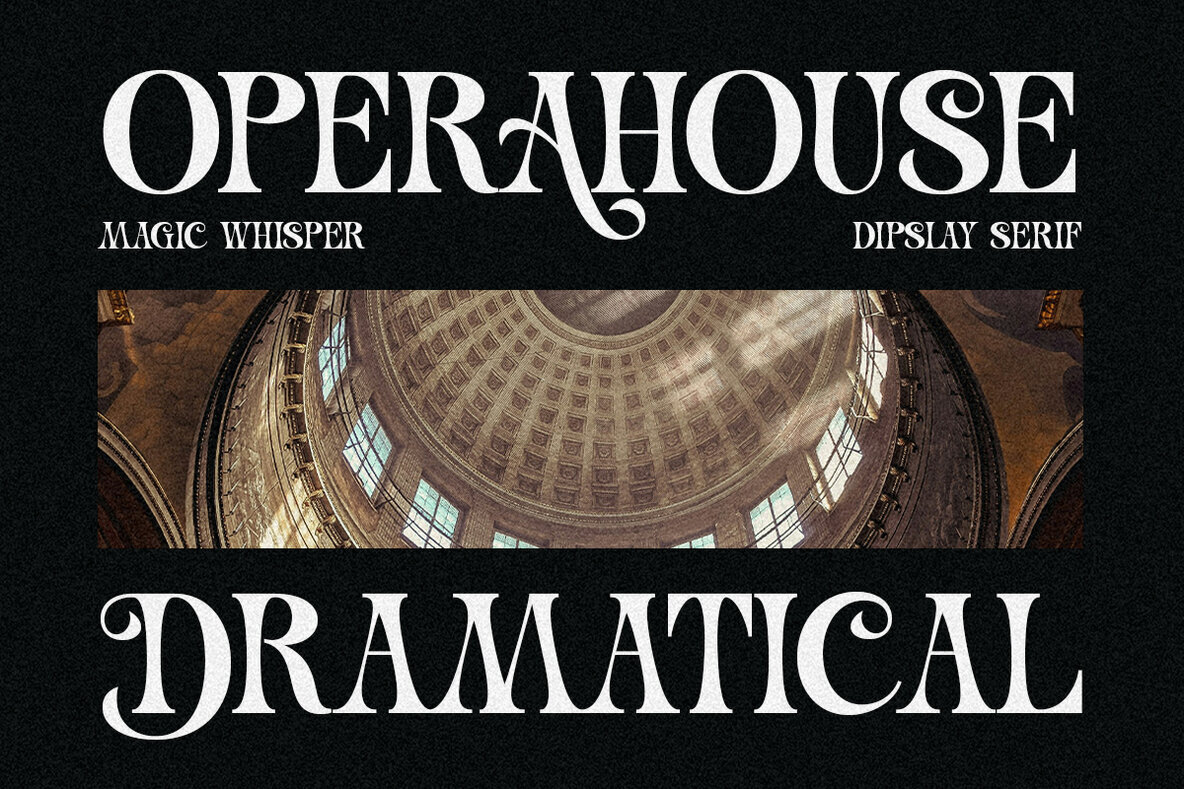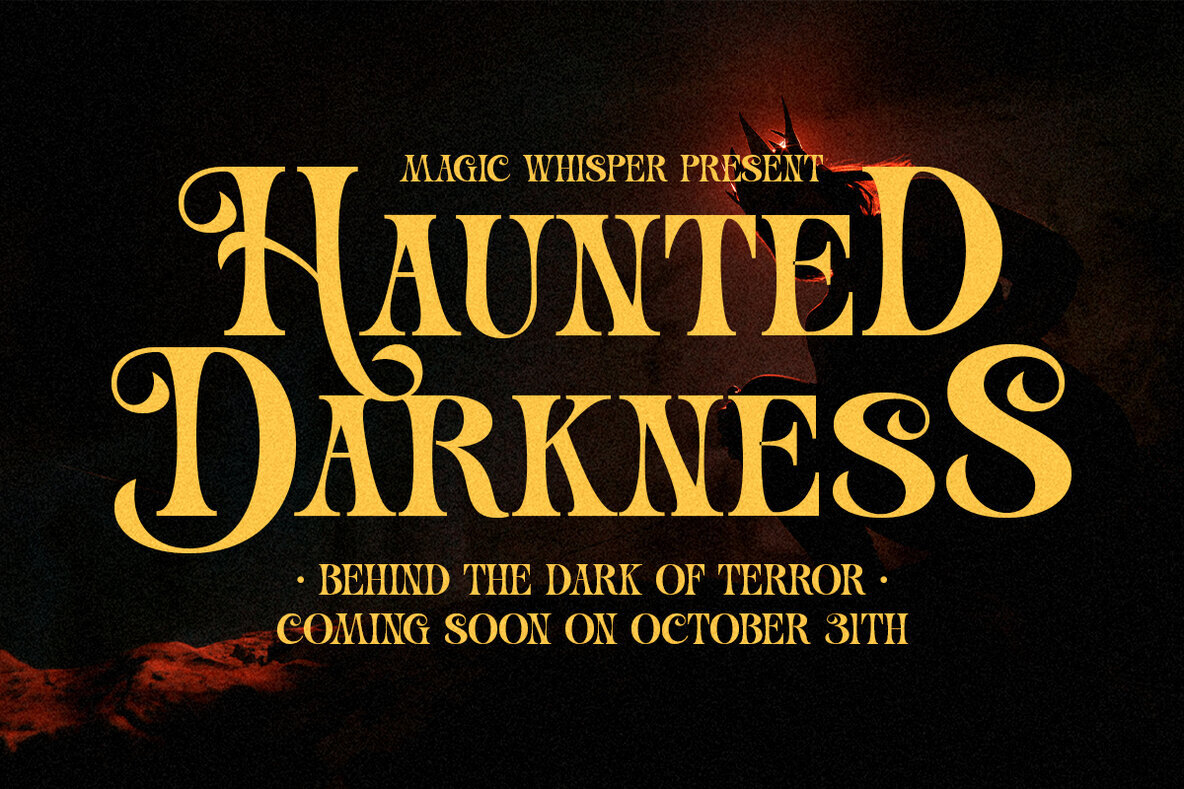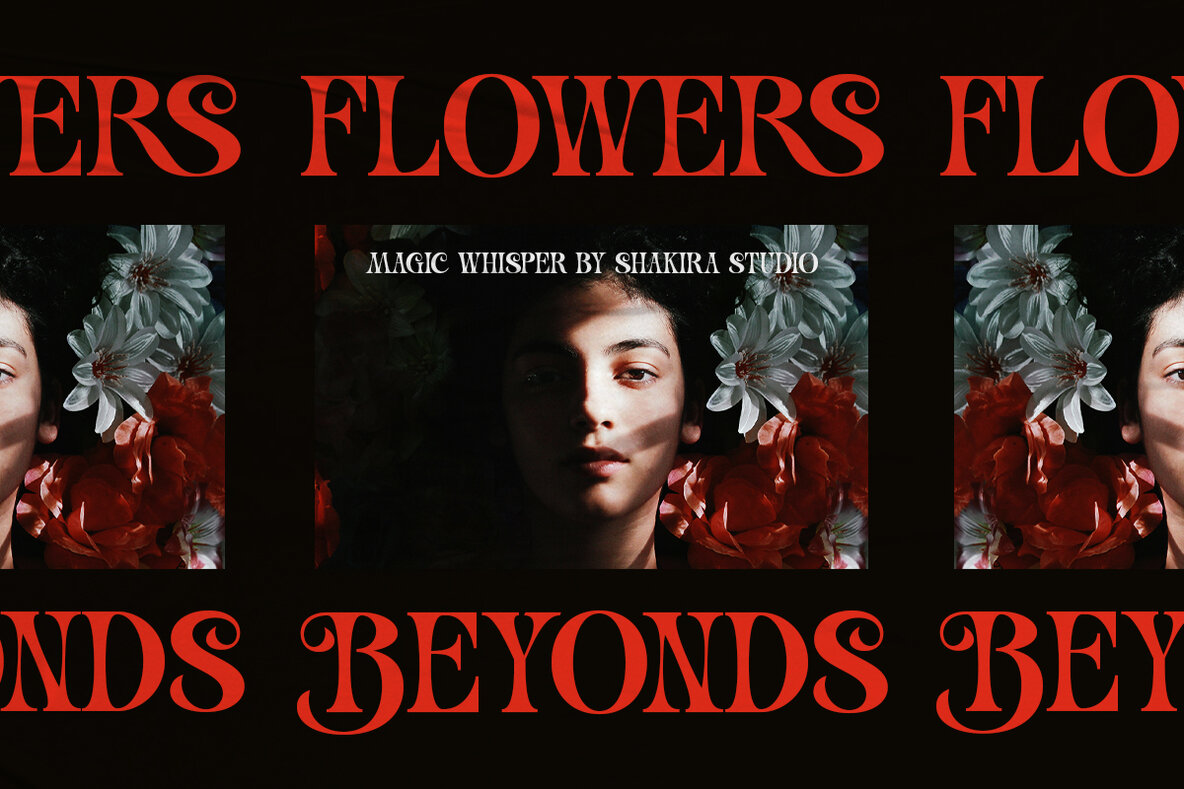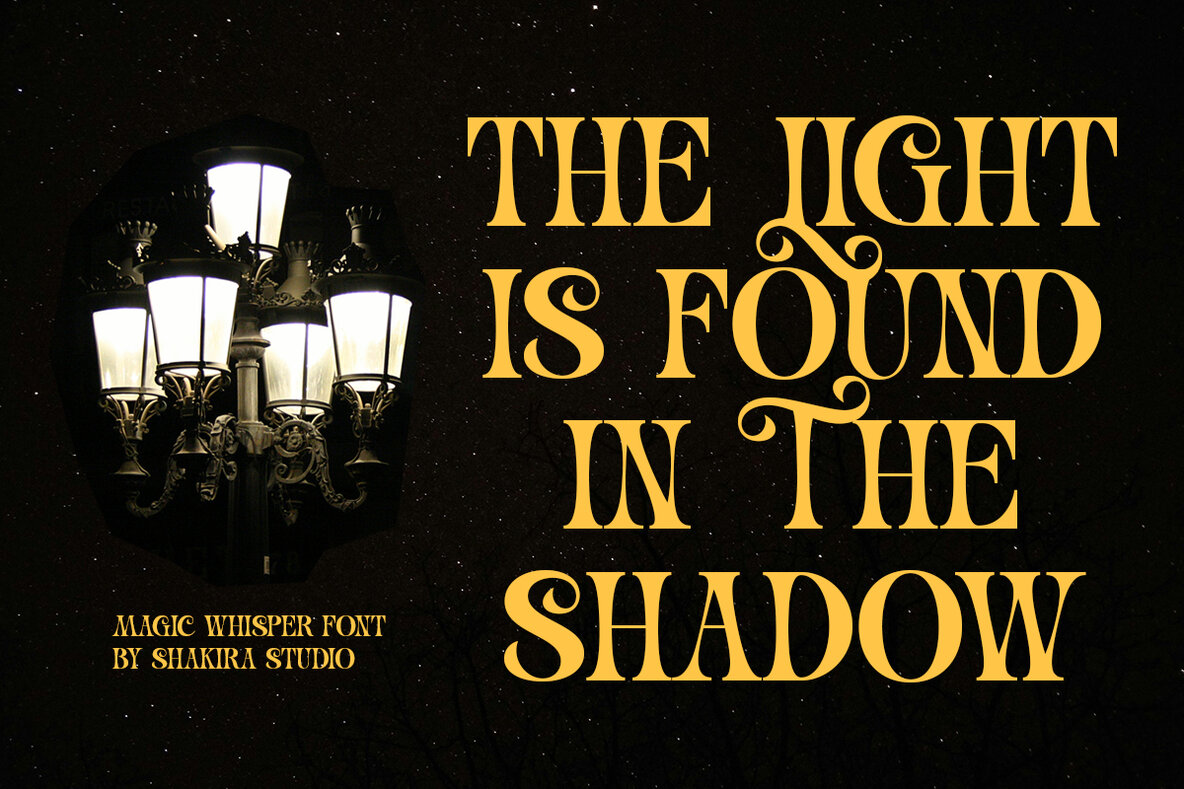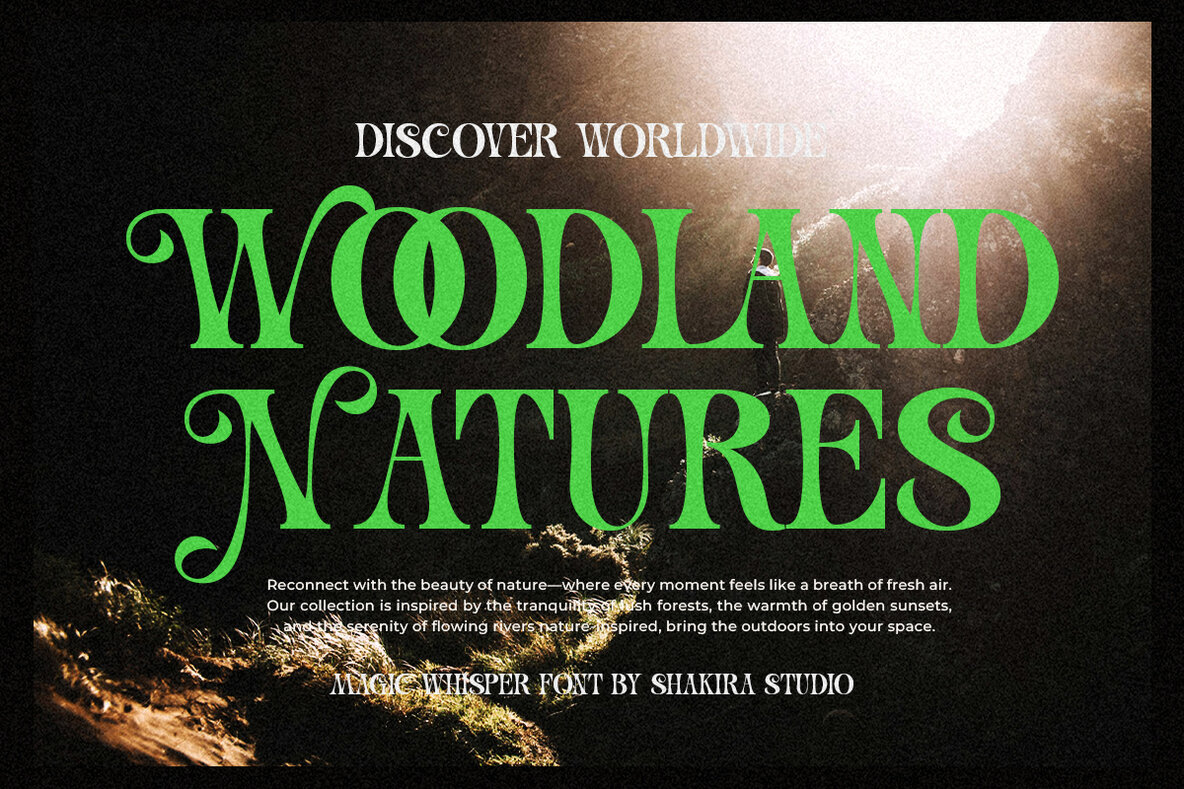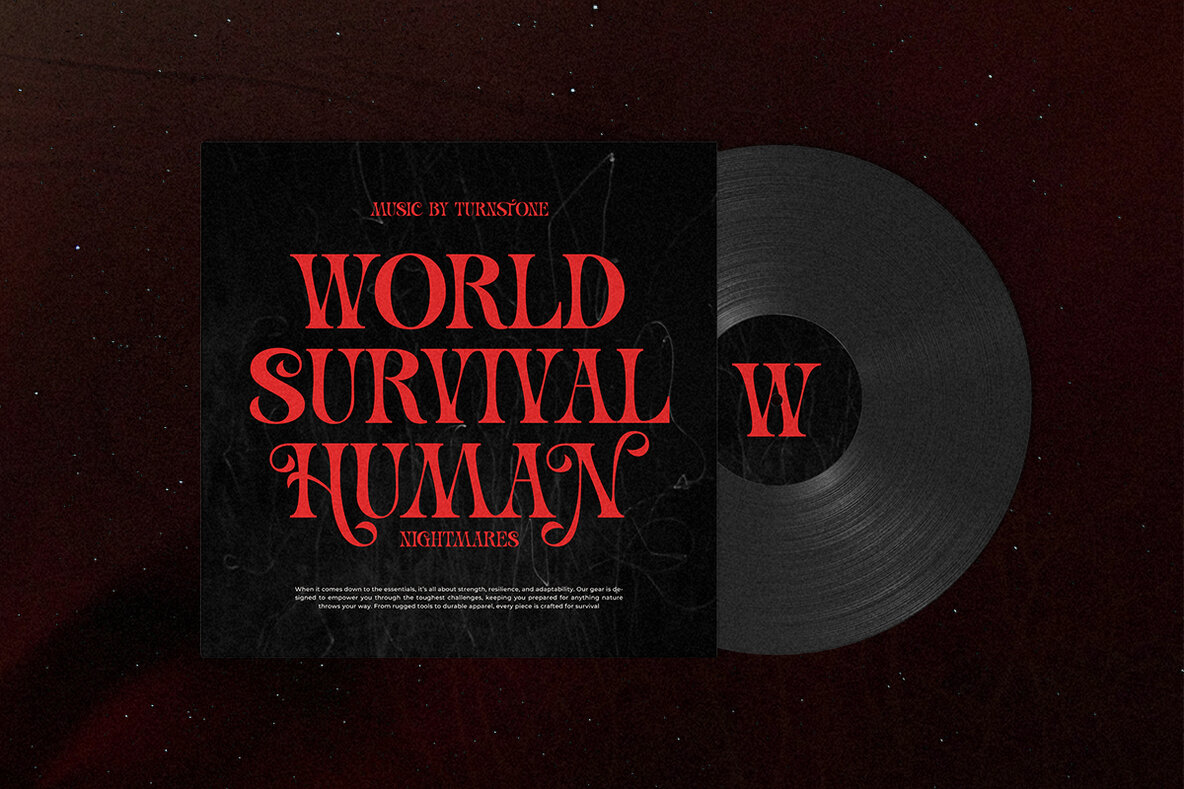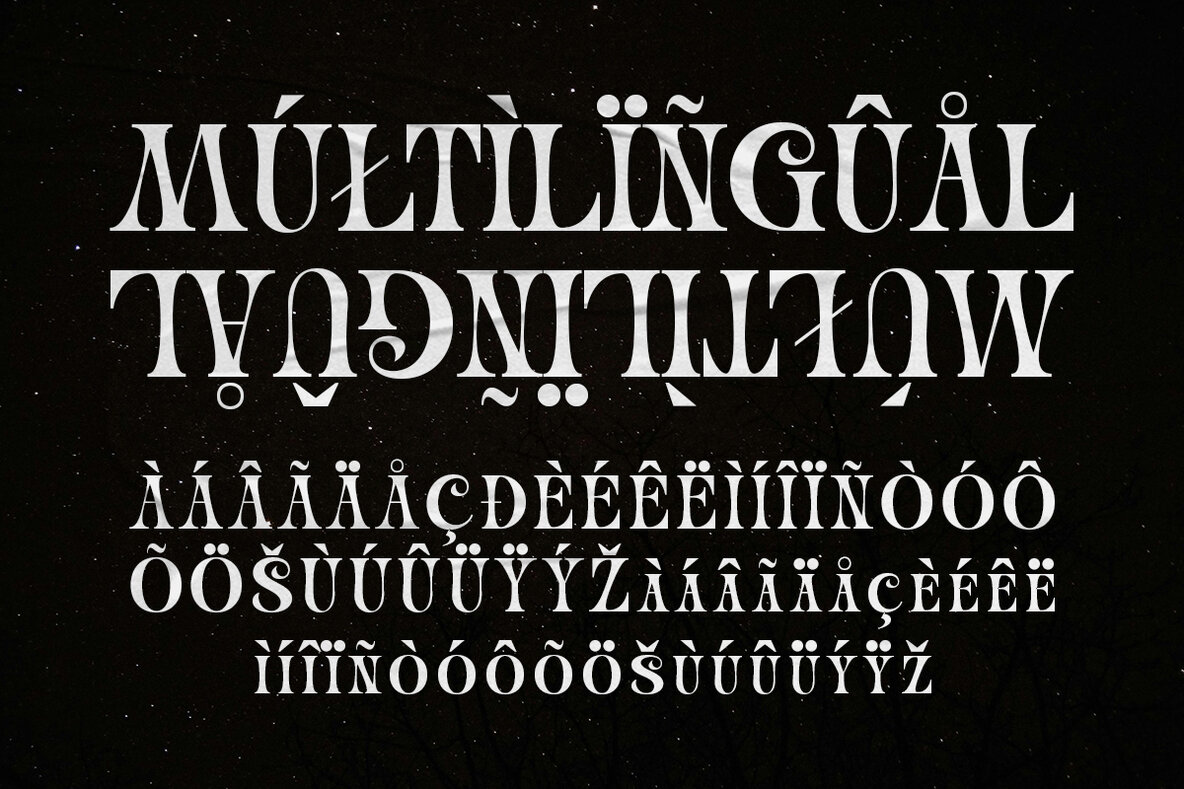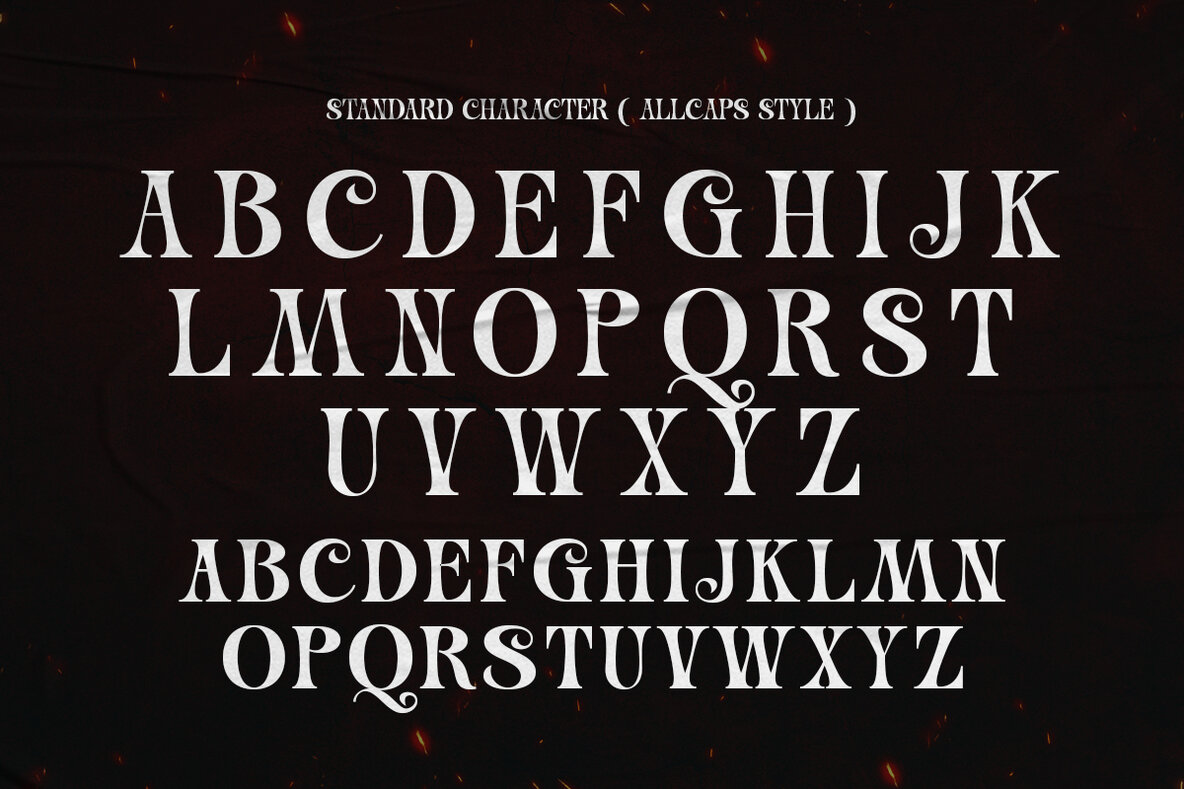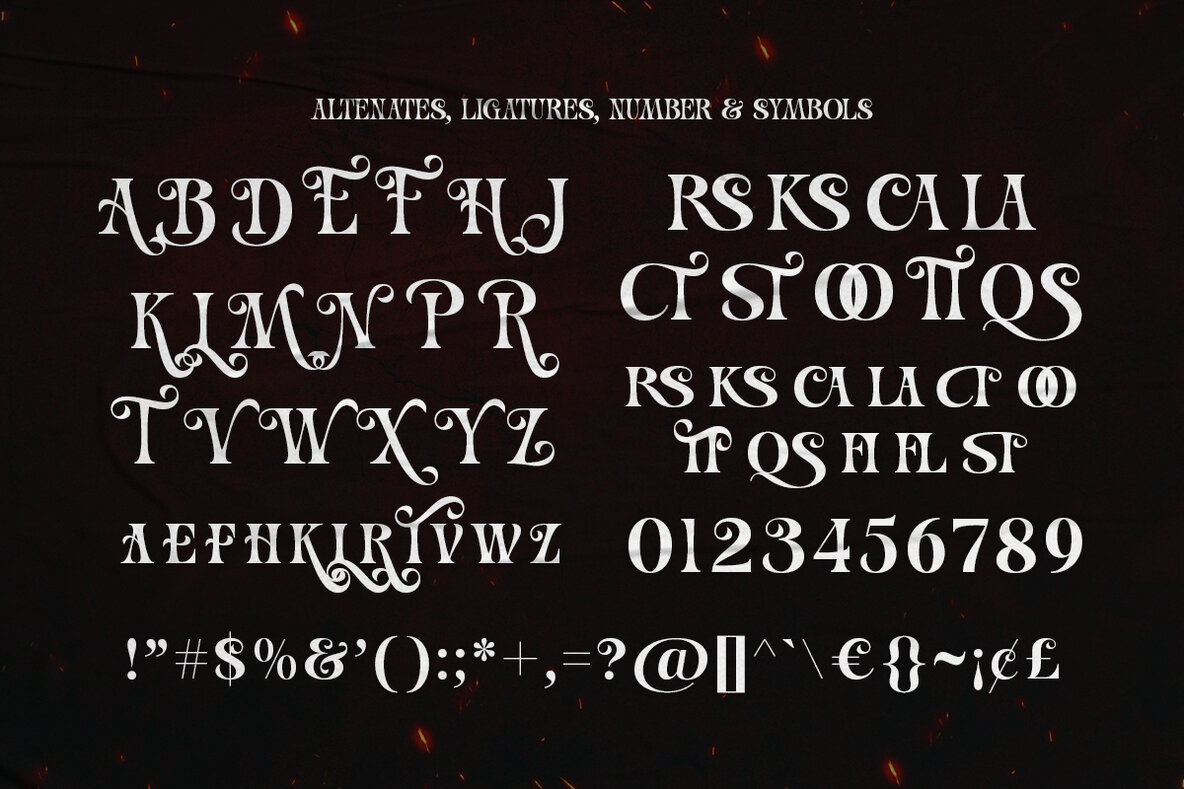
Magic Whisper Font
Magic Whisper Regular
Magic Whisper is a dramatic serif display font that embodies both elegance and mystique. With its bold type and stylish alternates, along with unique ligatures, this font is crafted to enhance any branding, poster, or editorial project. Its ability to blend vintage charm with modern aesthetics makes it a versatile choice for designers looking to create memorable work. The distinct characteristics of Magic Whisper allow creatives to add an enchanting quality to their designs.
Designed with flexibility in mind, this typeface includes a Regular weight, comprehensive multilingual support, and essential OpenType features such as ligatures and alternates. Its PUA encoded characters ensure full accessibility, eliminating the need for additional design software, and it's compatible with popular design tools like Adobe Illustrator, Photoshop, InDesign, and even Microsoft Word. Magic Whisper invites designers to explore its vintage-modern allure and incorporate it into a wide range of creative projects.